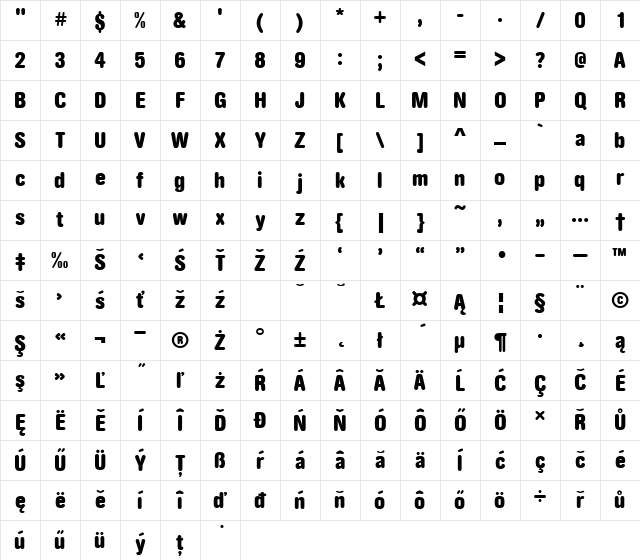
AcciuBucRouDEEBolCon Regular
Design Context for AcciuBucRouDEEBolCon
AcciuBucRouDEEBolCon is a composed and adaptable typeface that performs quietly and consistently across a wide range of design contexts.
Pro Tip: Use AcciuBucRouDEEBolCon in both headline and body roles to test its range before committing to a single application.